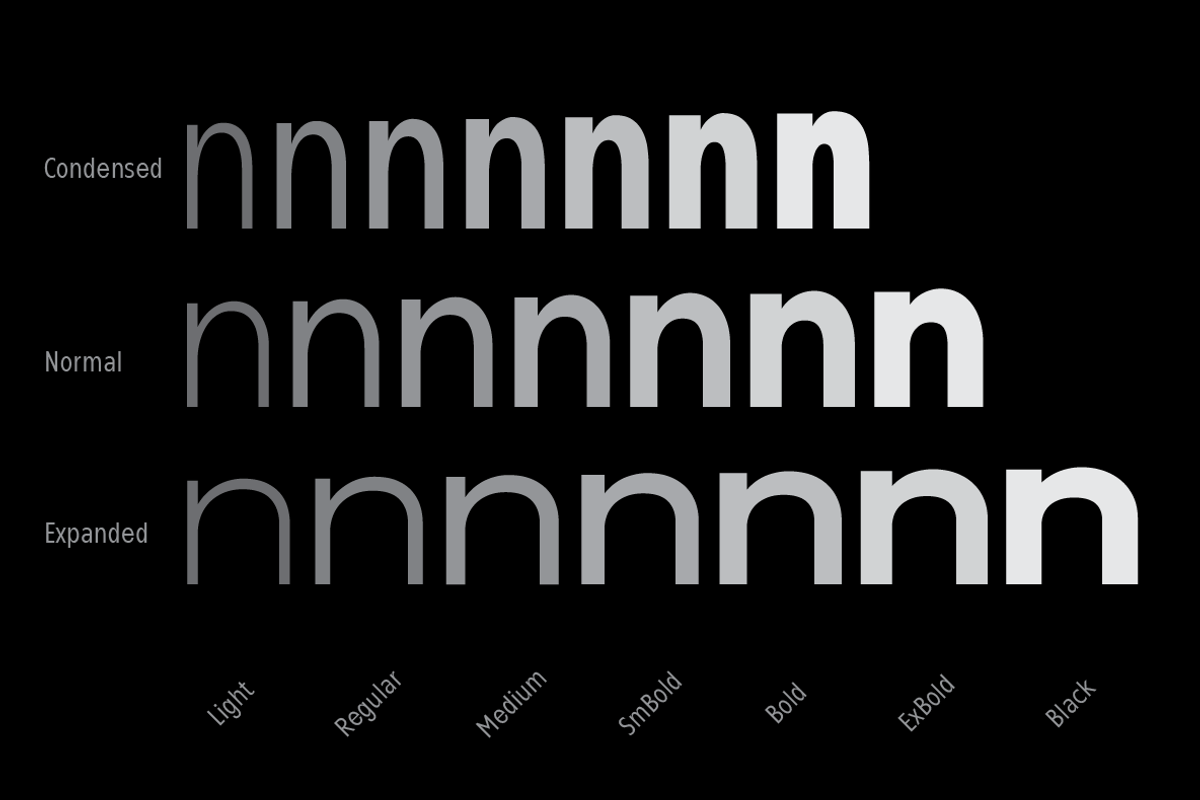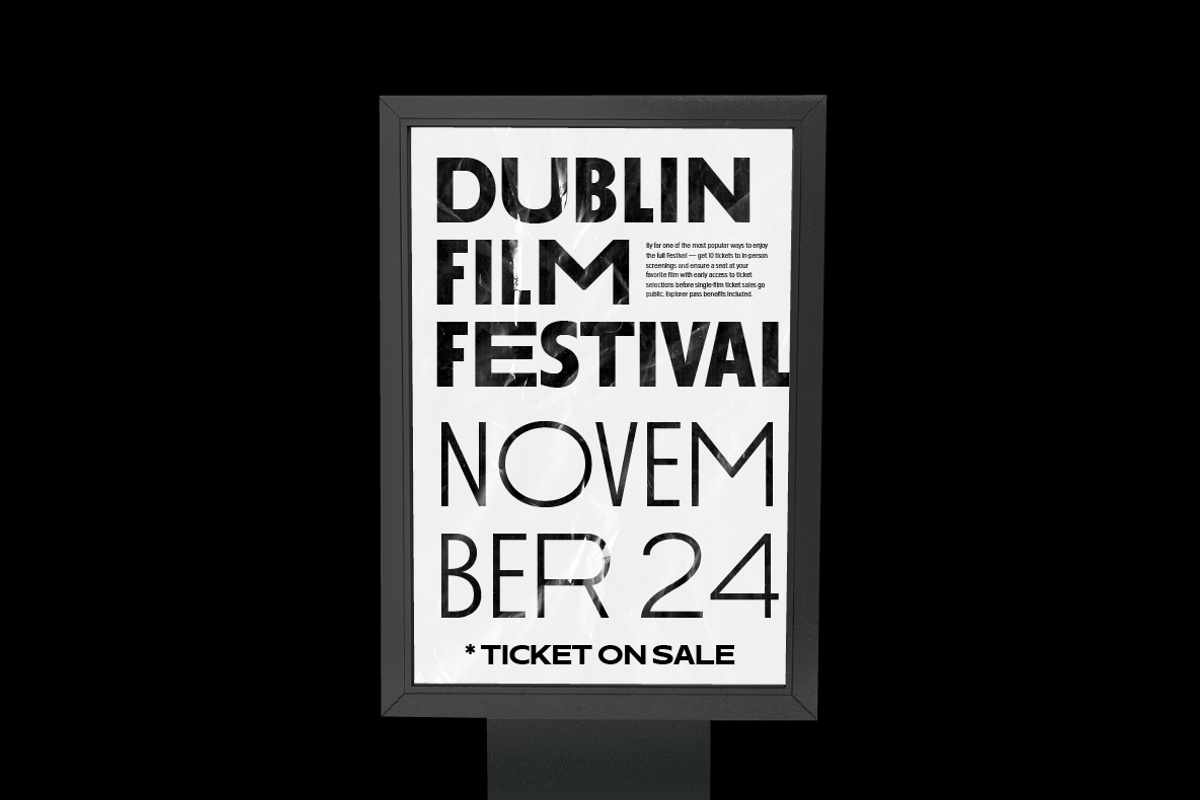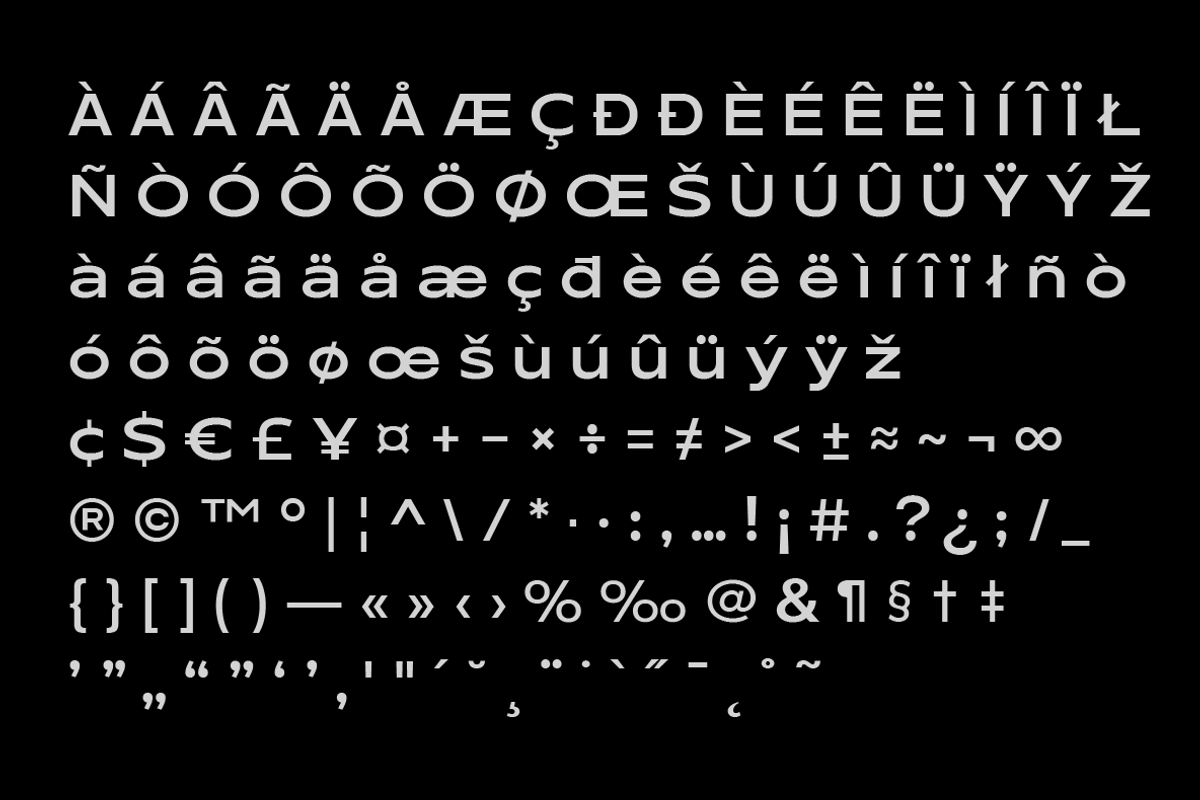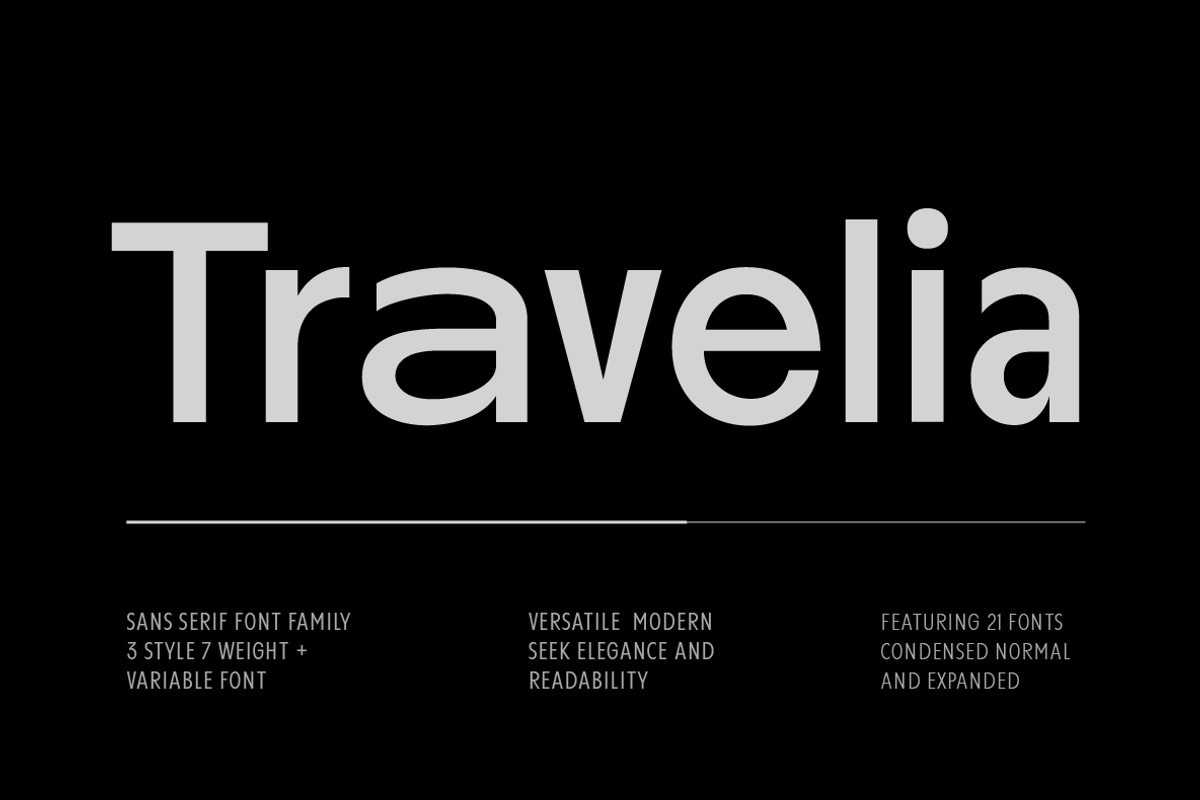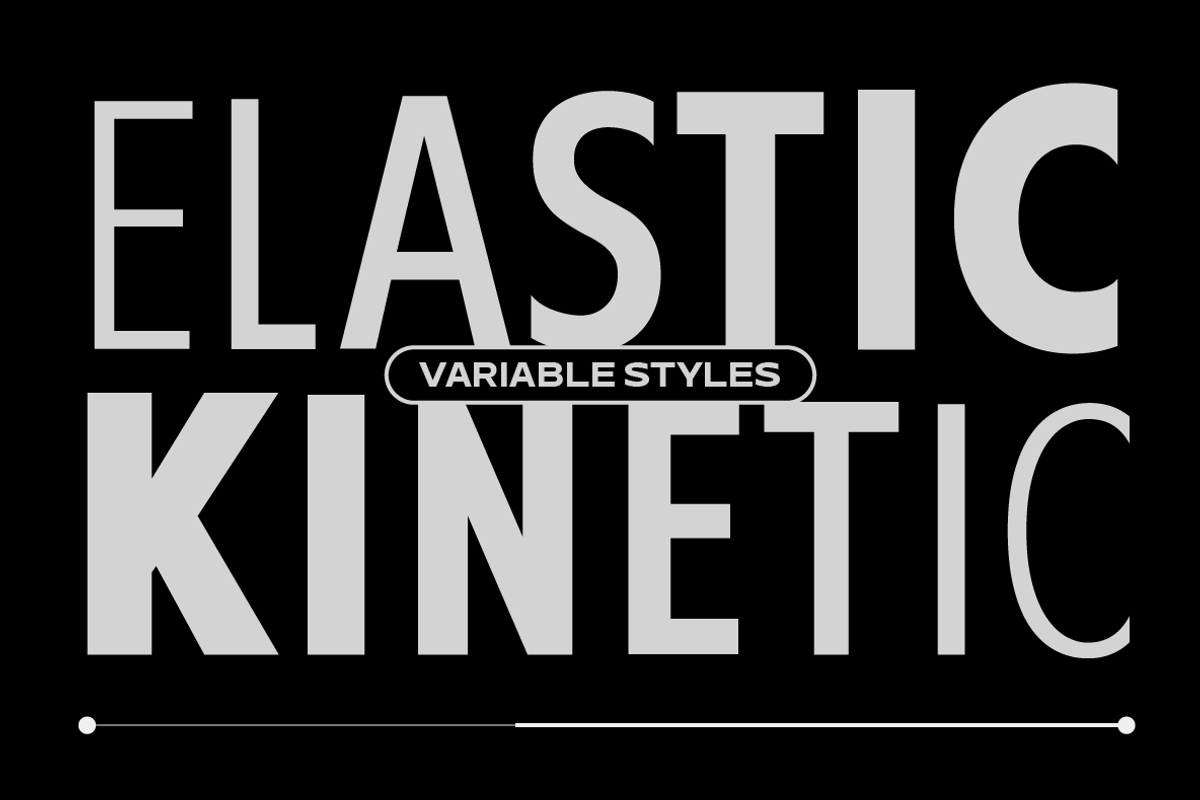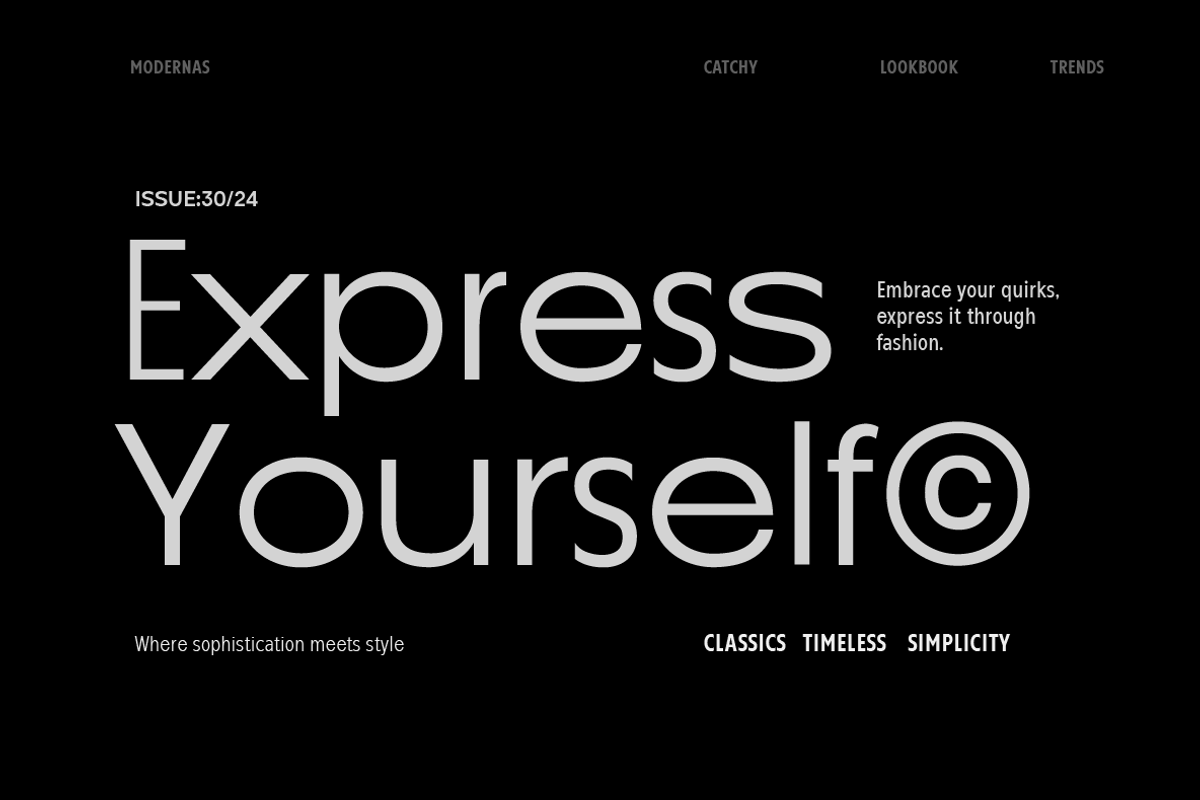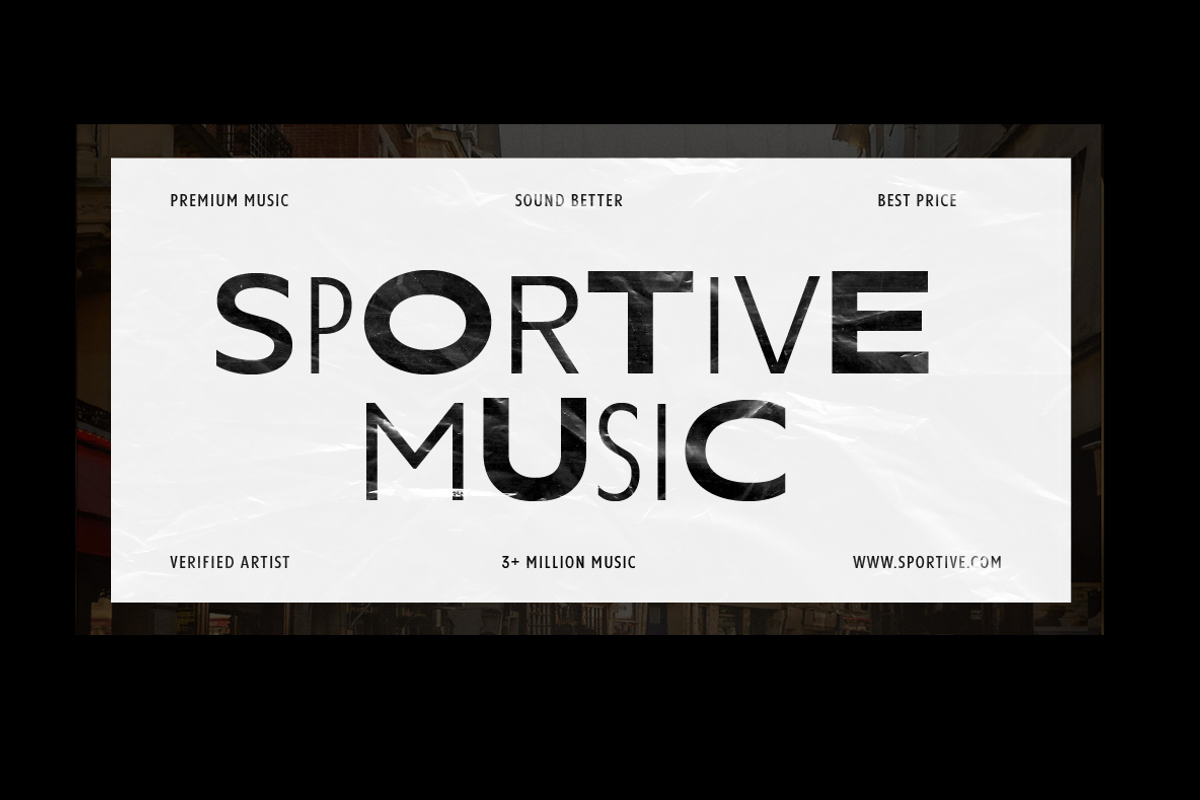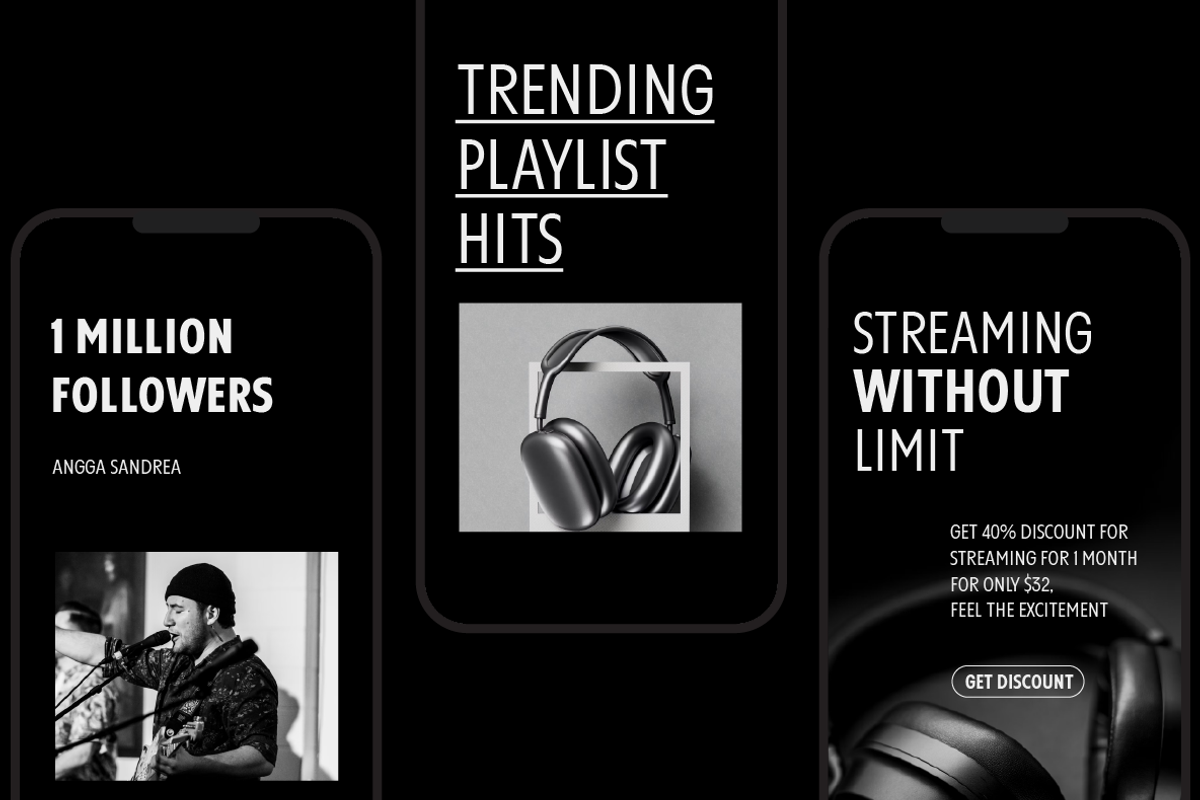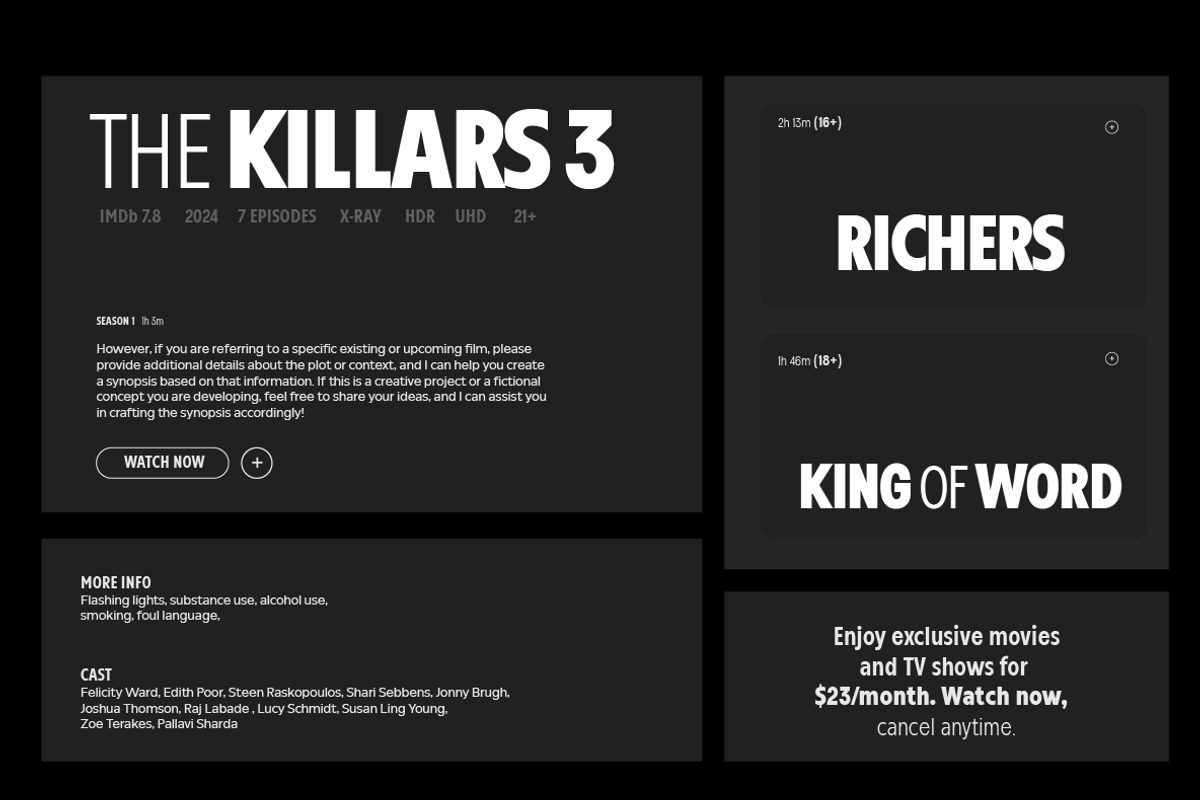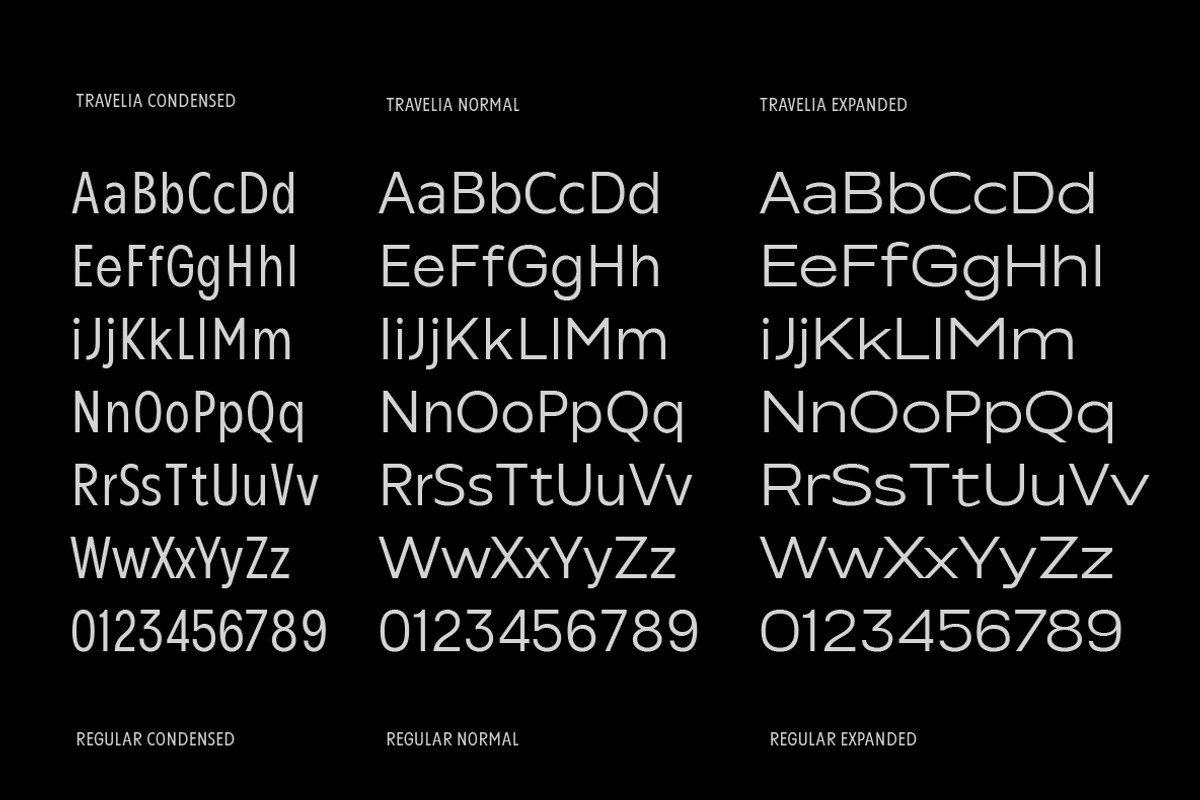
Travelia Sans Serif Font Family
Travelia Sans Serif Font Family is a versatile and modern collection designed for those who seek elegance and readability. Featuring 21 fonts, it offers 3 distinct styles—Condensed, Normal, and Expanded—each carefully crafted to suit various design needs. With 7 weights ranging from Light to Black, Travelia provides endless possibilities for creative projects, whether it's for branding, editorial design, web development, or advertising.
Each style in the Travelia family is tailored to deliver a unique visual experience:
- Condensed: Perfect for maximizing space without compromising legibility. Ideal for headlines, posters, and tight layouts.
- Normal: A balanced design that suits a wide range of applications, offering a clean and contemporary look for body text and headers.
- Expanded: Bold and expressive, this style is great for making statements, offering a sense of spaciousness and modernity.
The 7 weights included in each style are:
- Light: Subtle and refined, suitable for delicate designs and fine text.
- Regular: Versatile and easy to read, perfect for everyday use.
- Medium: A bit more pronounced, great for subheadings and highlighting.
- Semi Bold: Adds emphasis without overwhelming the design, ideal for titles and standout text.
- Bold: Strong and impactful, perfect for attention-grabbing elements.
- Extra Bold: Makes a bolder statement, designed to catch the viewer's eye.
- Black: The heaviest weight, offering maximum visual impact for bold and daring designs.